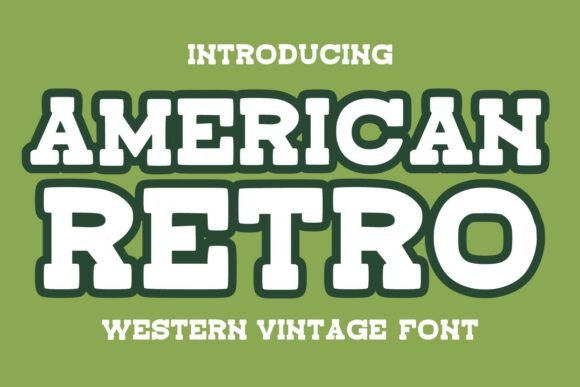
The Ultimate Guide to American Retro Font: A Timeless Western Classic
American Retro Font: A Bold Western Vintage Classic
American Retro is a bold western vintage font inspired by classic Americana typography, retro signage, and old western style lettering. With its strong slab-serif characters and eye-catching retro look, this font is perfect for logos, posters, branding, t-shirt designs, packaging, labels, sports themes, and vintage-inspired creative projects. American Retro delivers a timeless western and collegiate feel that makes every design stand out.
- ✅ Unique Retro Style: American Retro has a distinct vintage flair that’s hard to find in modern fonts.
- ✅ Highly Versatile: This font can be used for a wide range of projects, from logos and posters to t-shirt designs and packaging.
- ✅ Easy to Read: Despite its bold and retro style, American Retro remains highly legible, even at smaller sizes.
- ✨ OpenType Features: The font comes with a range of OpenType features, including stylistic alternates and glyphs, which can add an extra layer of creativity to your designs.
While American Retro is an excellent font, there are a few things to keep in mind:
- ⚠️ Limited Use in Formal Contexts: Due to its bold and playful nature, American Retro might not be the best choice for formal or professional projects that require a more traditional look.
- 🤔 Pairing with Other Fonts: American Retro can be a bit overpowering when paired with other bold fonts. It’s best to balance it with simpler, sans-serif fonts.
The Designer Inspiration Behind American Retro
American Retro was inspired by the classic typography of the American West. The font’s designer drew inspiration from vintage posters, signage, and lettering of the 1950s and 1960s. The result is a font that captures the spirit of the American West and adds a touch of nostalgia to any design.
Q: What type of projects is American Retro best suited for?
American Retro is perfect for logos, posters, branding, t-shirt designs, packaging, labels, sports themes, and vintage-inspired creative projects.
Q: Is American Retro a difficult font to read?
No, American Retro is designed to be highly legible, even at smaller sizes. Its bold and slab-serif style makes it easy to read, even for audiences with visual impairments.